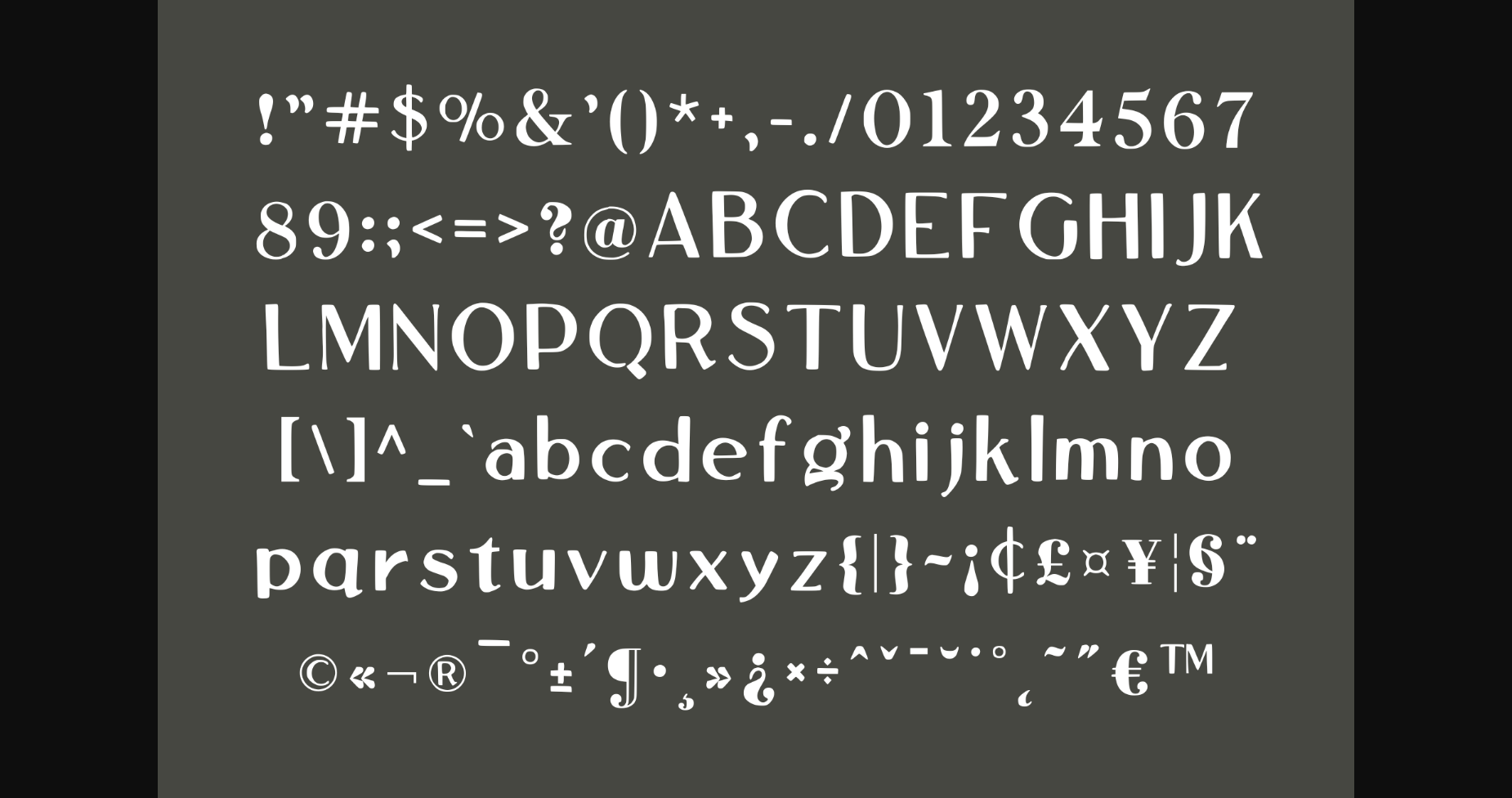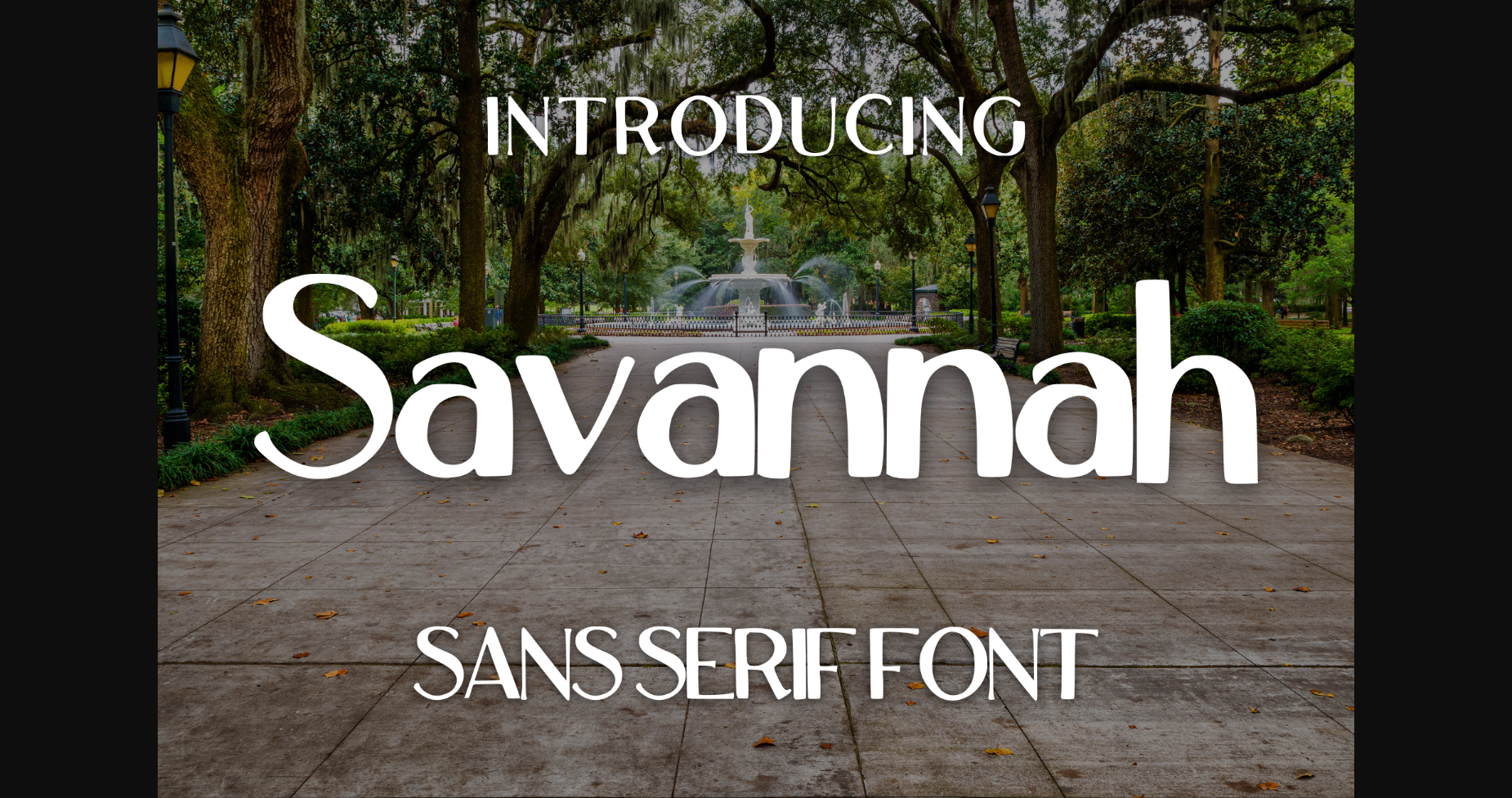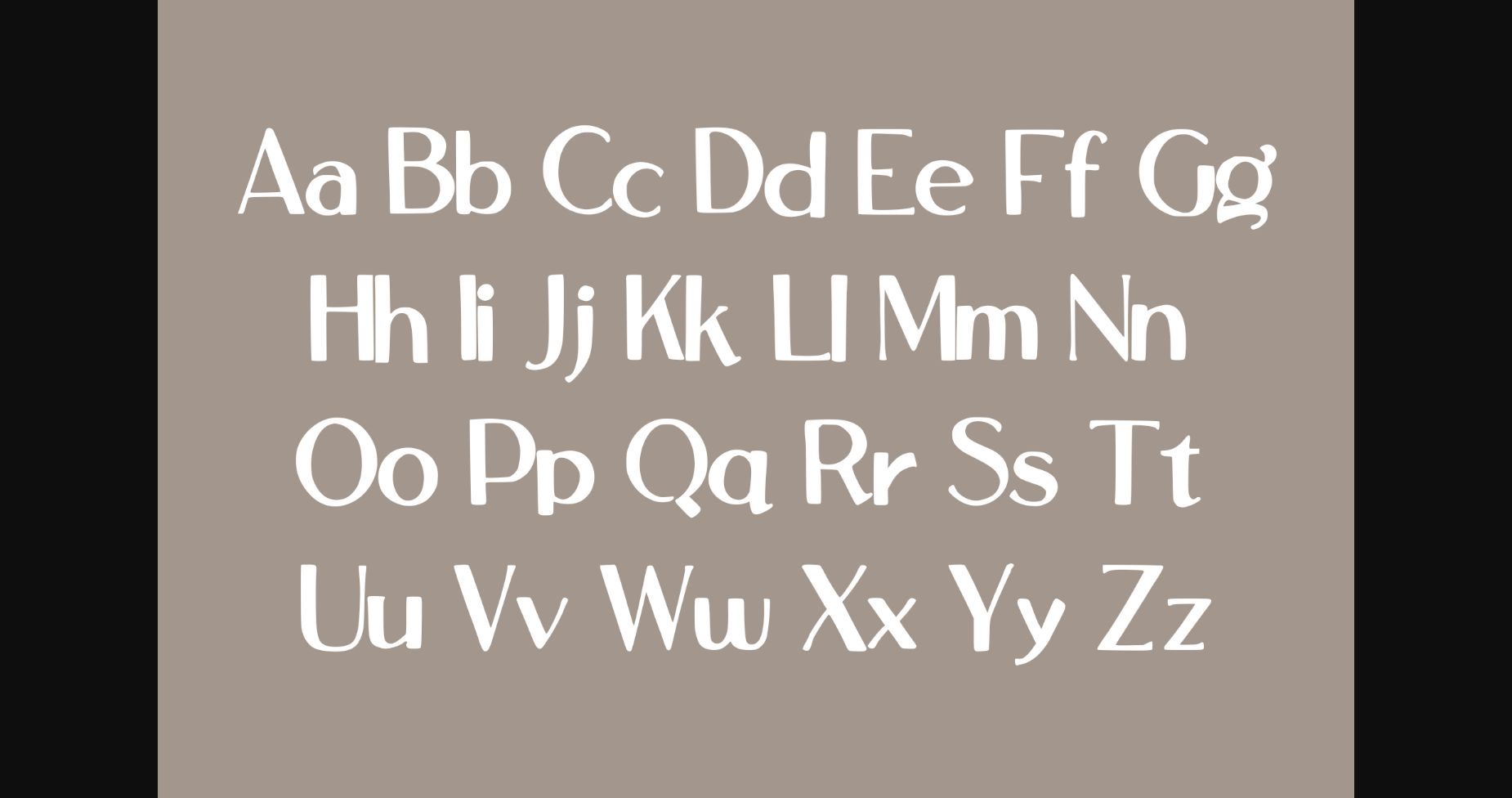
About Savannah Font
Savannah is a modern and attractive sans-serif font. It is ideal for contemporary projects and digital media, making it perfect for eye-catching headlines, alluring branding, and easy-to-read body text. This font exudes sophistication and professionalism, adding a touch of elegance to any design.